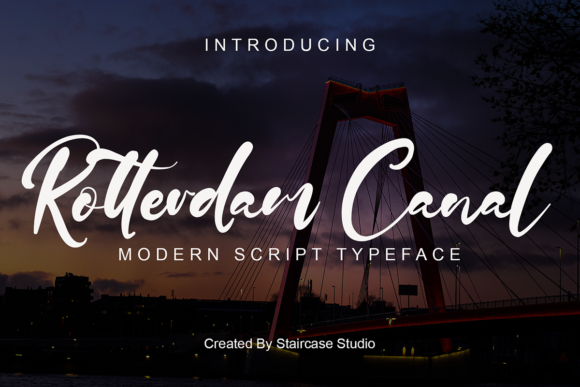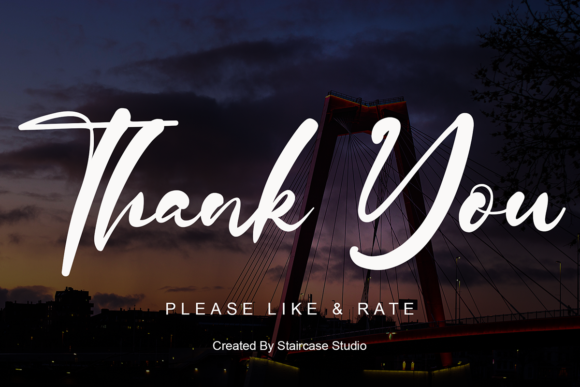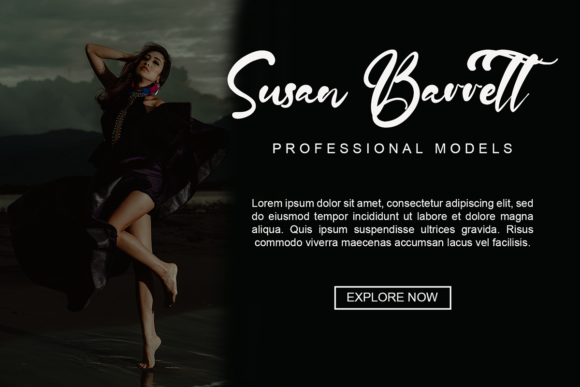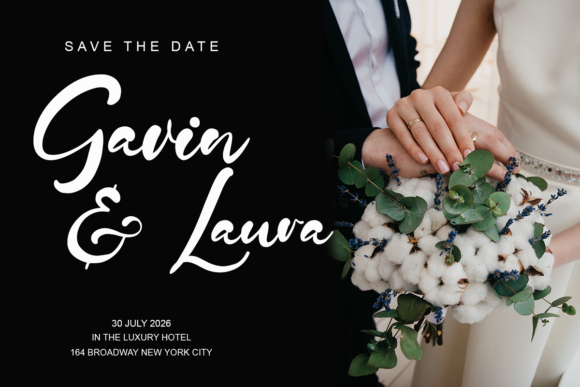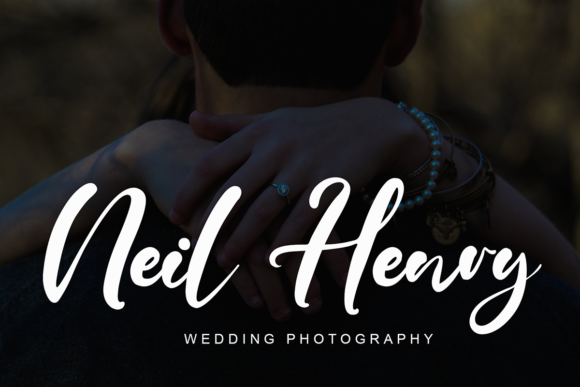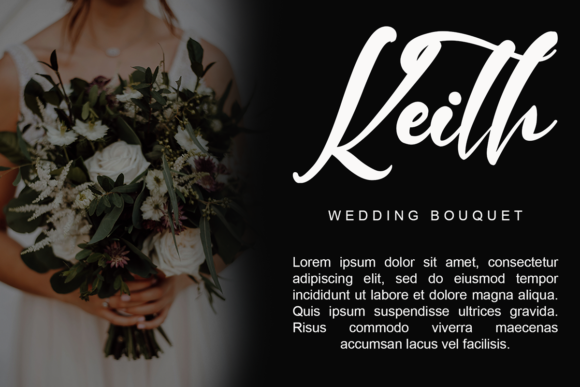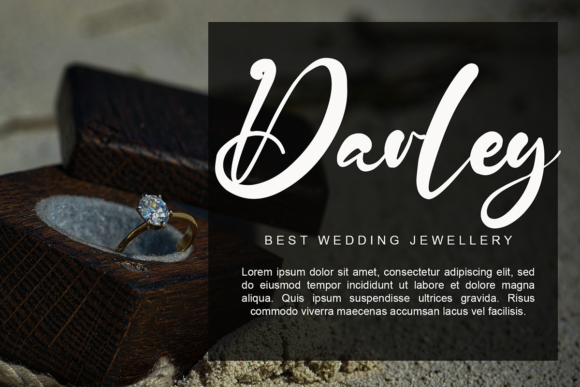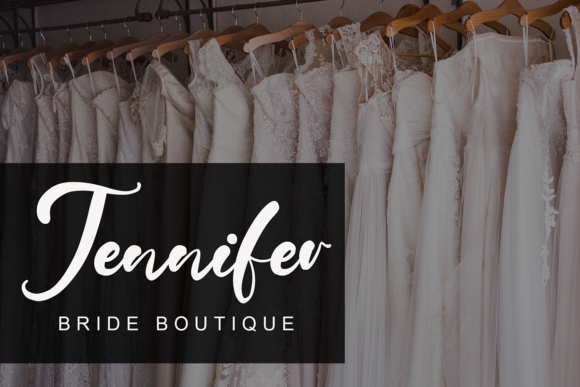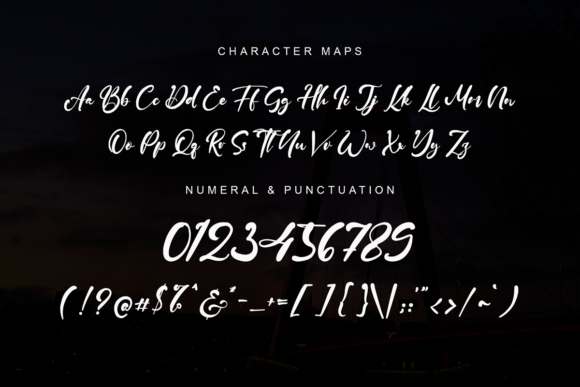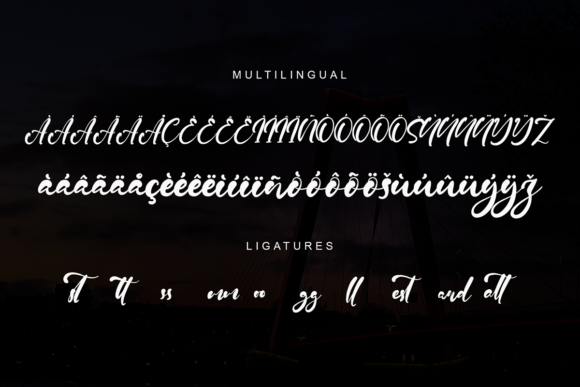
Rotterdam Canal Font
About Rotterdam Canal Font
Rotterdam Canal is a modern script typeface that contains a collection of letters and numbers suitable for any of your projects. It works great on logotypes, branding design, digital lettering, T-shirt/apparel design, posters, magazines, signs, advertising, and so much more!